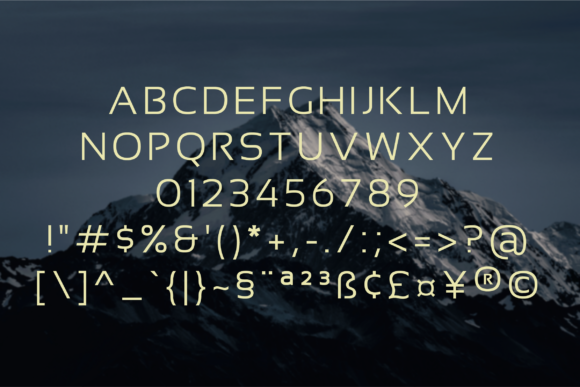
Introduction to Horelios Light Font
Have you ever found yourself staring at a blank page, waiting for the perfect font to inspire your next creative project? I know I have. And when that perfect font finally appears, it’s like a breath of fresh air. That’s exactly what happened when I discovered the stunning Horelios Light Font.
This all-caps sans serif font is more than just a pretty face – it’s a game-changer for designers. With its minimalistic and timeless design, Horelios Light Font looks beautiful in layouts, headers, and even on websites. And the best part? It’s a free download, making it an invaluable design resource for anyone looking to elevate their creative work.
Whether you’re working on a high-quality print project or a web design, Horelios Light Font is sure to bring a touch of sophistication and elegance to your work. In this article, we’ll take a closer look at what makes this font so special and how you can use it to take your designs to the next level.
Key Features of Horelios Light Font
- High-quality design resource ideal for creative projects requiring a clean and modern look.
- Designed to be highly legible, with a clear and easy-to-read font style, making it perfect for body text and headings.
- Available in multiple weights and styles, providing designers with flexibility and versatility in their creative projects.
Honest Review: Horelios Light Font
I recently had the chance to work with the Horelios Light Font, and I must say it’s been a great addition to my design arsenal. As a designer, I’m always on the lookout for high-quality fonts that can elevate my creative projects and give them a professional touch.
What works well: ✨ The font is incredibly versatile, making it perfect for a wide range of design projects. Its clean and modern aesthetic is sure to appeal to anyone looking for a sophisticated look. I’ve used it for everything from branding materials to social media graphics, and it always looks great.
Limitations: ⚠️ While the font is incredibly versatile, it’s not without its limitations. In some cases, the font can appear a bit too minimalist, which may not be suitable for all design projects.
Overall impression: I’m thoroughly impressed with the Horelios Light Font, and I highly recommend it to anyone looking for a high-quality font for their creative projects. Its versatility, modern aesthetic, and free download make it a must-have design resource for anyone.
Horelios Light Font is a versatile font that can be used in a variety of creative projects, including logos, brochures, and website design. Its clean and modern design makes it an ideal choice for any project that requires a professional and sophisticated look.